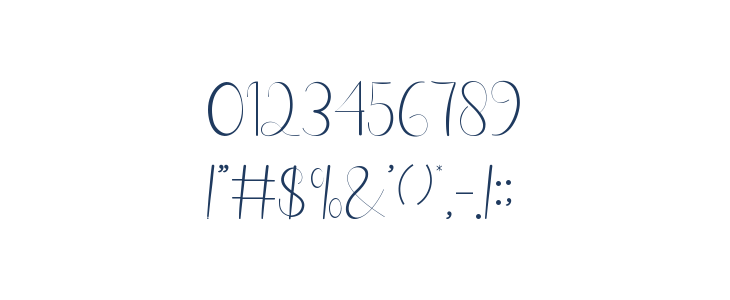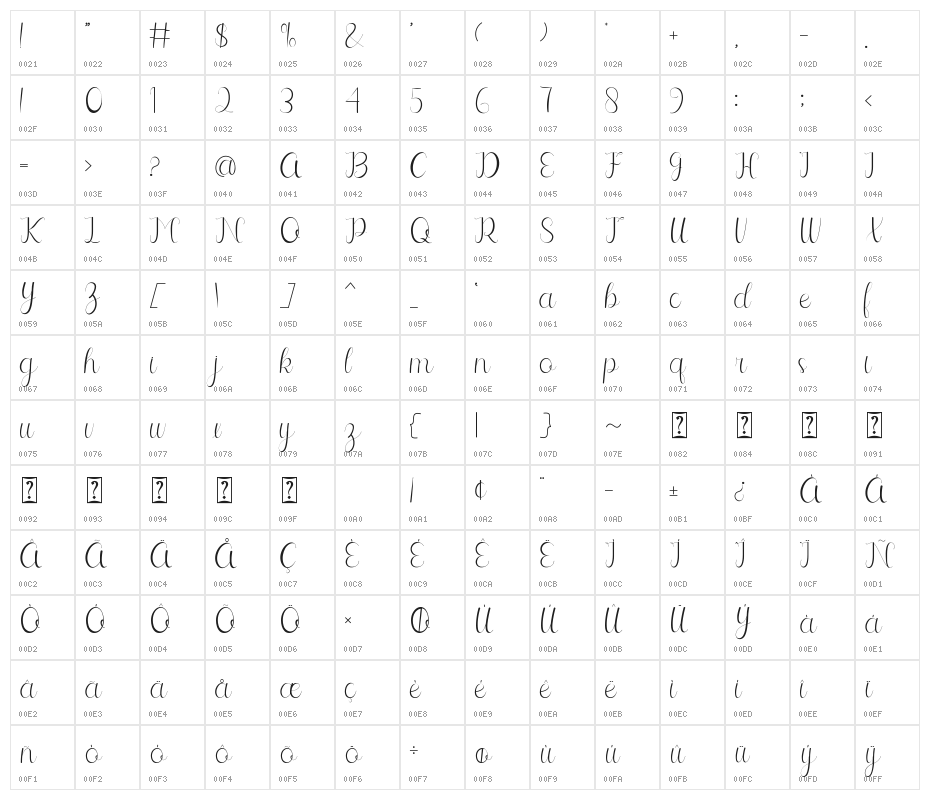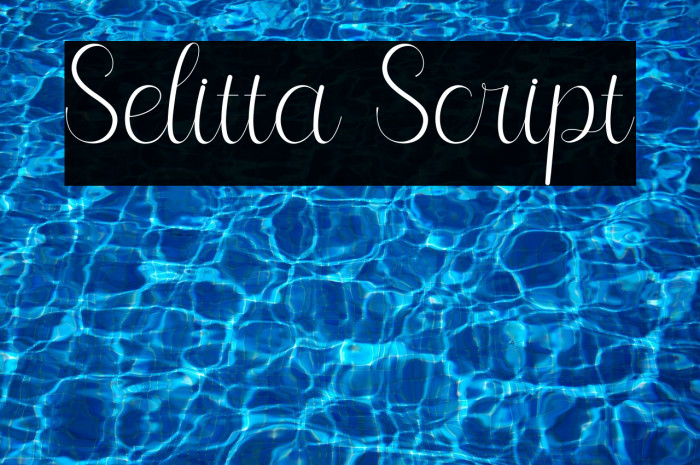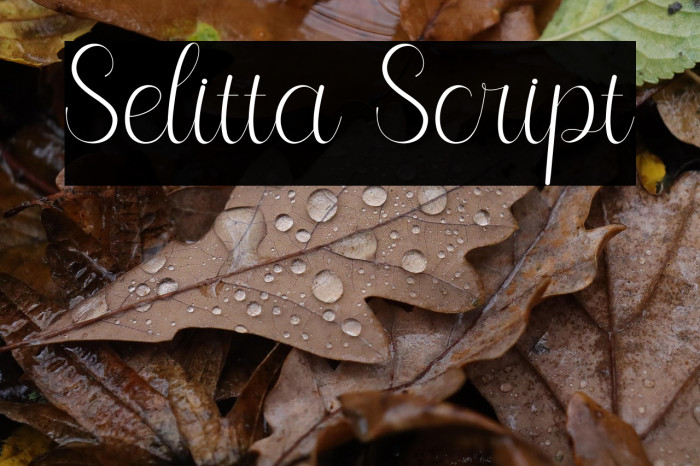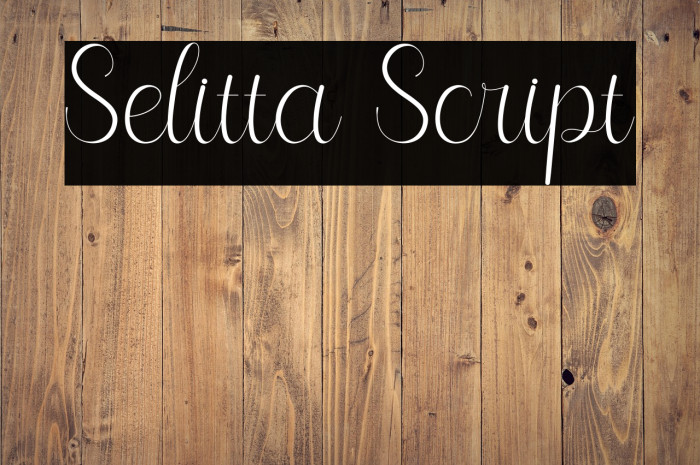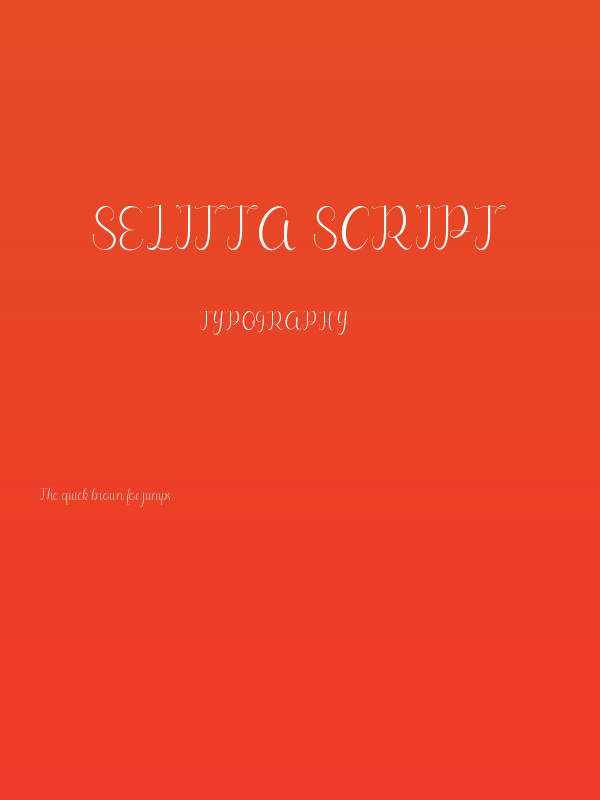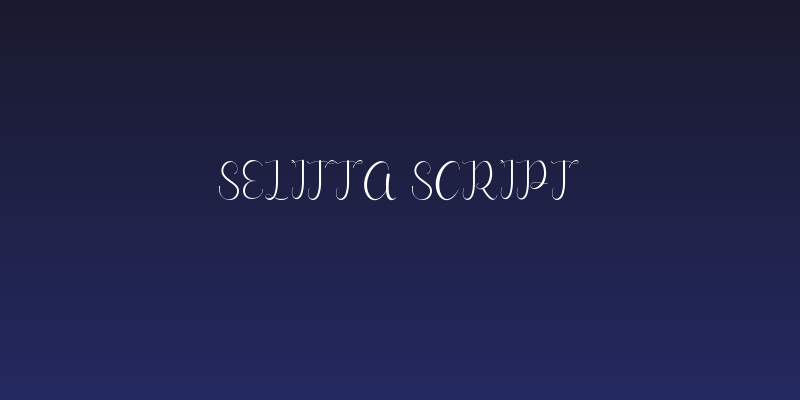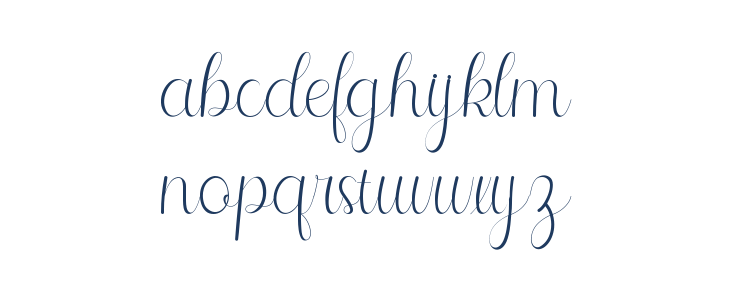
Selitta Script Font
Selitta Script Description
This elegant script font features a flowing, cursive style with graceful loops and swashes. The uppercase letters are characterized by their tall, slender forms and intricate flourishes, while the lowercase letters maintain a consistent, smooth flow. The numerals are designed with a similar elegance, incorporating subtle curves and delicate lines. Special characters are thoughtfully crafted to complement the overall aesthetic, adding a touch of sophistication. The font's thin strokes and high contrast give it a refined, airy appearance, making it suitable for formal and decorative applications.
Overall StyleElegant, Decorative
Use CaseHeadlines, Invitations, Branding
Proposed ProjectsIdeal for wedding invitations, elegant branding, greeting cards, and decorative headlines.